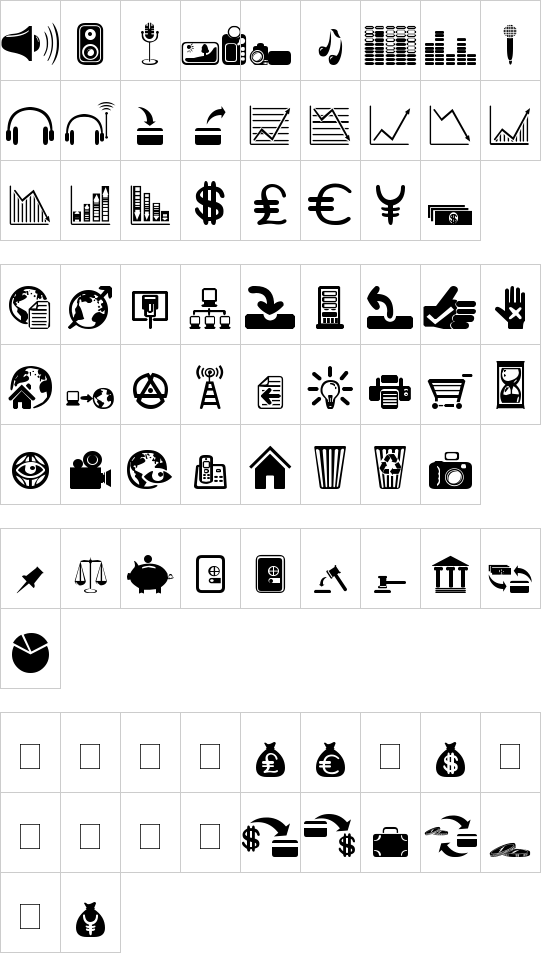
GADing4
About GADing4
GADing4 is a dingbat font filled with assorted decorative glyphs and icons rather than typed characters. Each key holds a different ornament or symbol, giving you a mixed set of design elements at a keystroke.